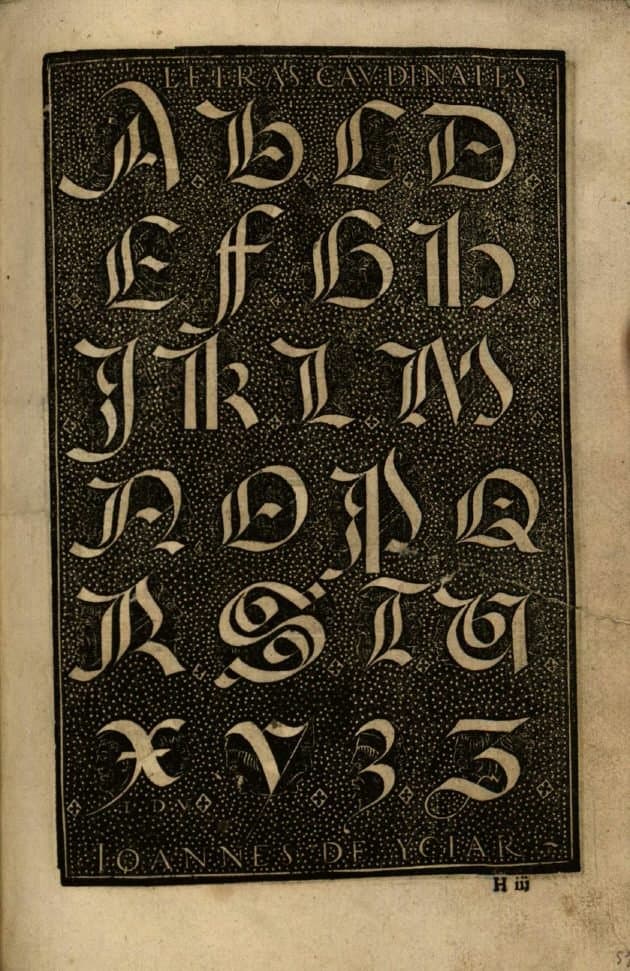
Respira Black Construction
Respira is a contemporary blackletter inspired by Spanish and English models from the 15th and 16th centuries.
Respira is inspired by a particular style of Spanish blackletter often found in illuminated manuscripts of Andalusia. We first came across this unique style in the breathtaking Santa Iglesia Catedral Metropolitana de la Encarnación in Granada, Spain. For designer Lucas Sharp, it was love at first sight.
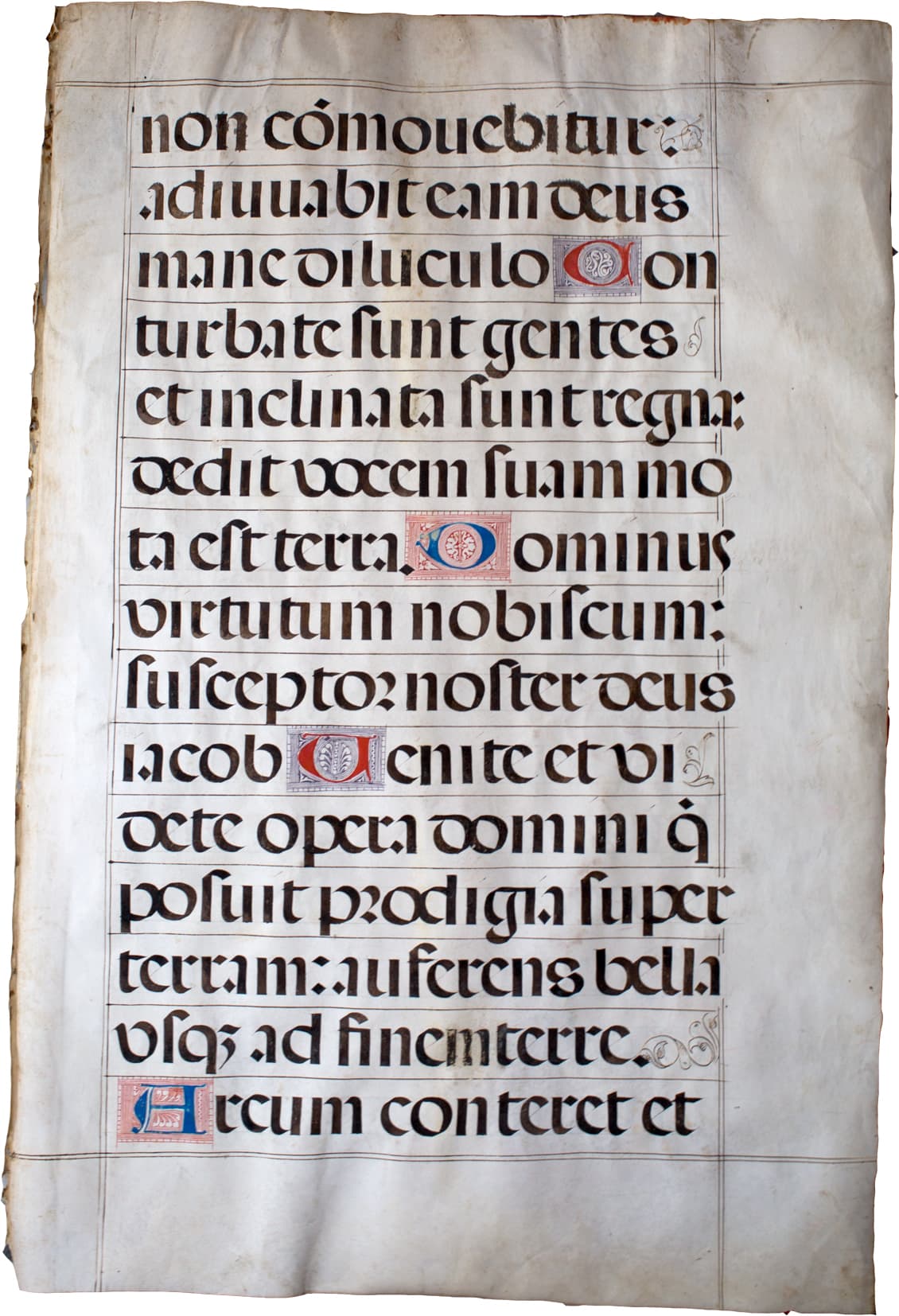
While blackletter was originally used for text settings, from the 11th century through much of the 16th and 17th, it’s modern use is almost exclusively for display, leading the current models to be much more decorative than their original text versions. This miniscule was like nothing we had ever seen – the more complex letters were strikingly beautiful, constructed ingeniously and inventively with skillful calligraphic strokes, but the foundational vertical strokes were simple and plain. While other blackletter in use today commonly employs a complex system of serifs and flourishes with varied hairlines and endstrokes, this miniscule contained none of that noise.
Its vertical stems were simple and austere, containing only a modest implication of serifs. This tension between simplicity and complexity present in the word shape is magnified by the tight spacing afforded by the subtlety of the serifs.
The design of Respira is also influenced by the physical deterioration of the ancient manuscripts. Due to poor lighting conditions behind the alter of the Catedral de la Encarnación, we were unaware that some of the more stylized forms like the “a” and the “k” were not actually “stenciled”, but were so high contrast and old that the hairlines had gradually faded from view. We discovered the existence of the hairlines when we came across the style in the 16th century Spanish master Juan de Ycíar’s Arte Subtilissima (1553, Zaragoza) - and later noticed a super fine and faded hairline when we were lucky enough to come across an original manuscript page for our own library while antiquing in Sevilla.